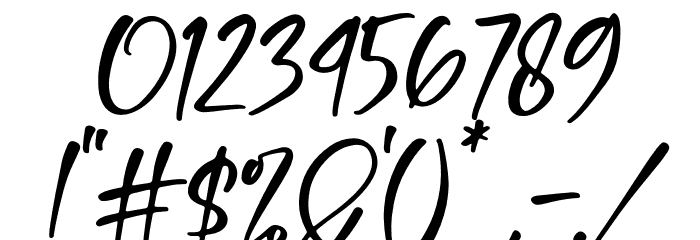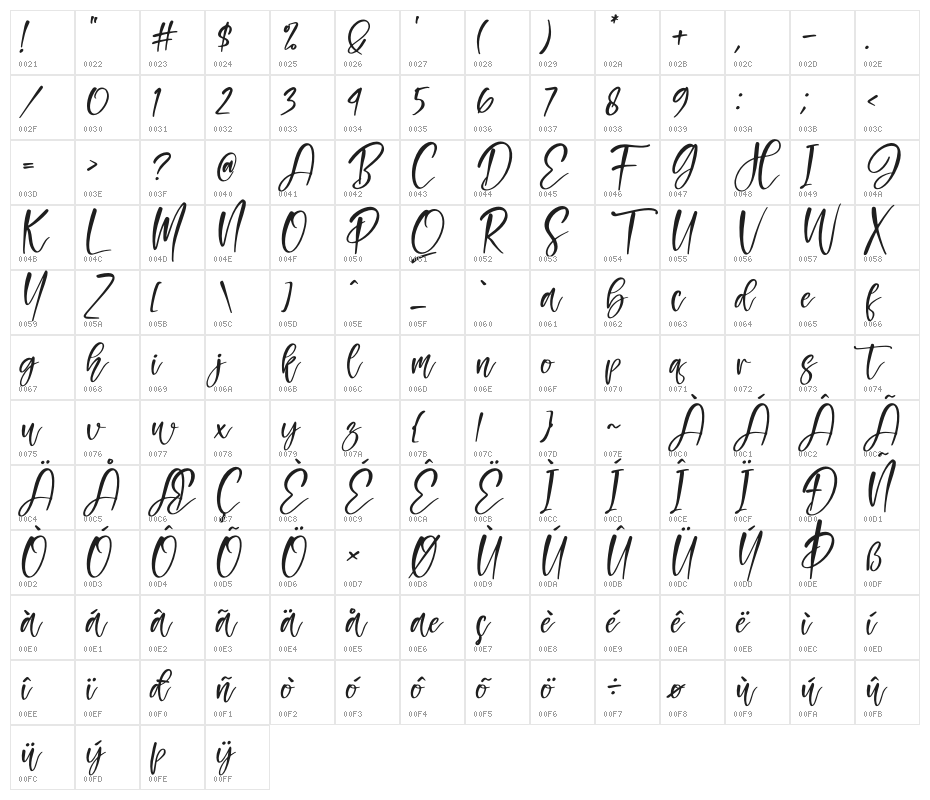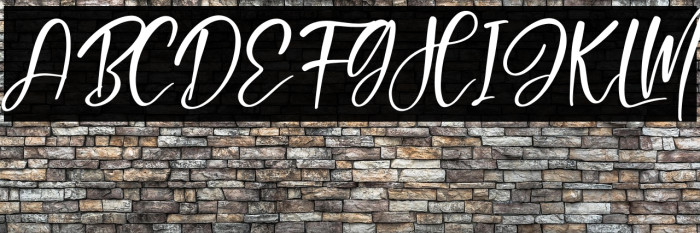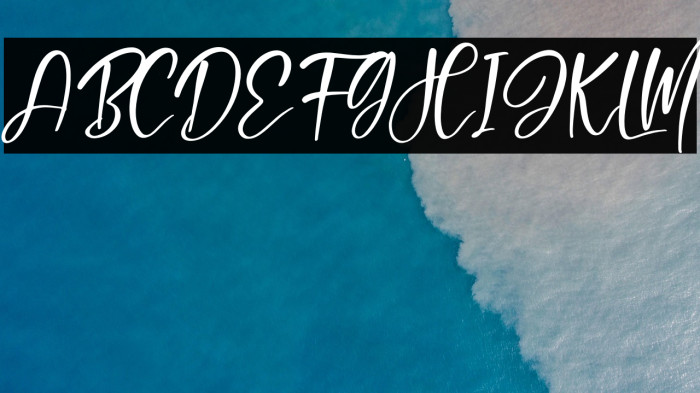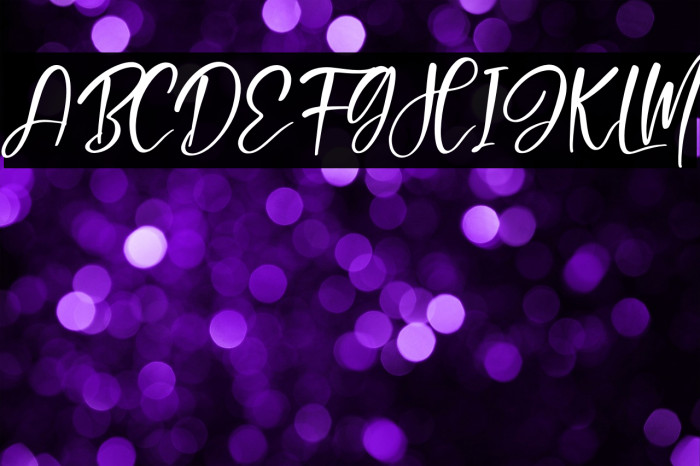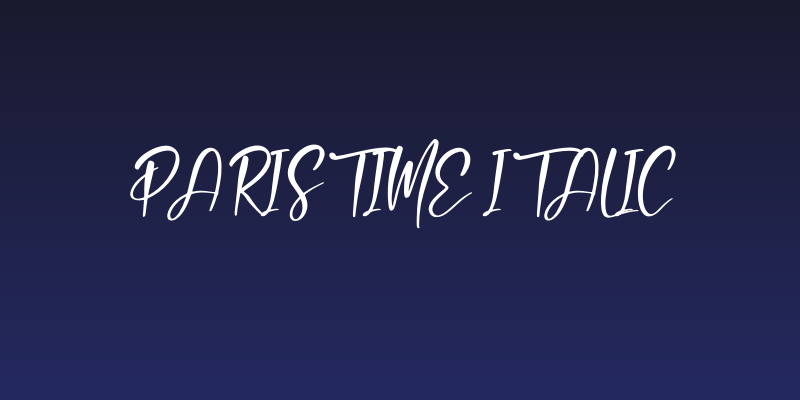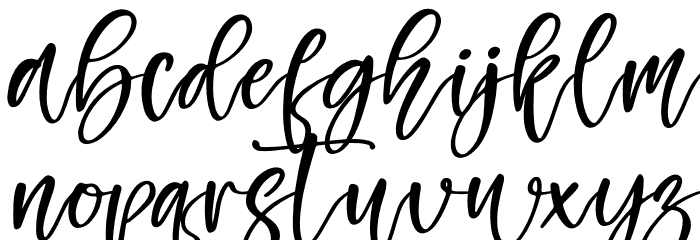
Paristime Italic Font
Paristime Italic Description
This font features a dynamic and fluid script style, characterized by its elegant, flowing curves and a sense of movement. The letters are connected, giving it a cohesive and handwritten appearance. The uppercase letters are bold and slightly slanted, while the lowercase letters maintain a consistent rhythm and flow. The numbers and special characters are designed to match the overall style, with a playful yet sophisticated look. This font exudes a sense of creativity and personal touch, making it ideal for projects that require a humanistic and artistic feel.